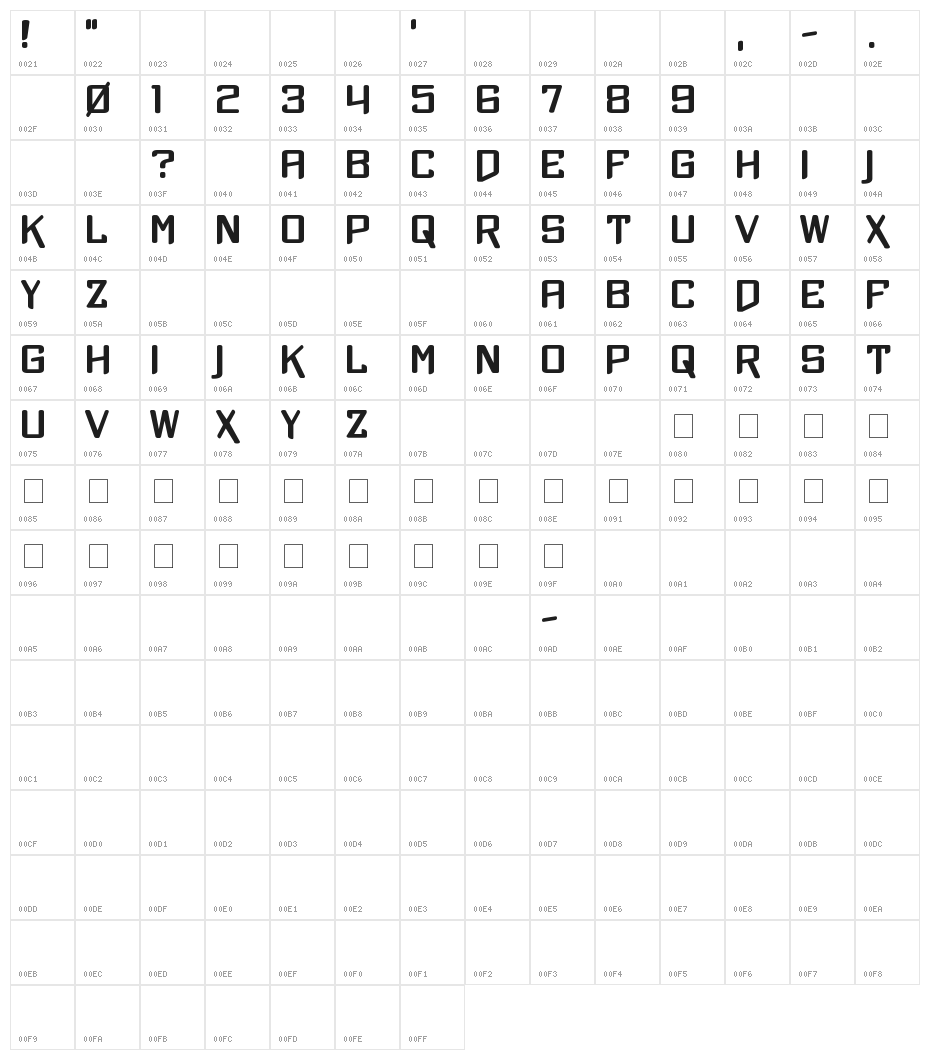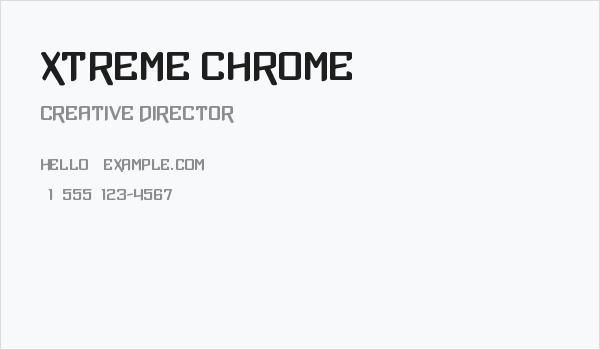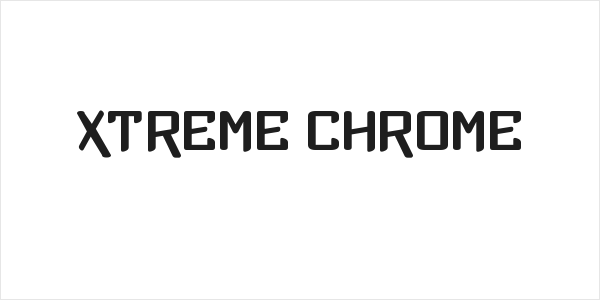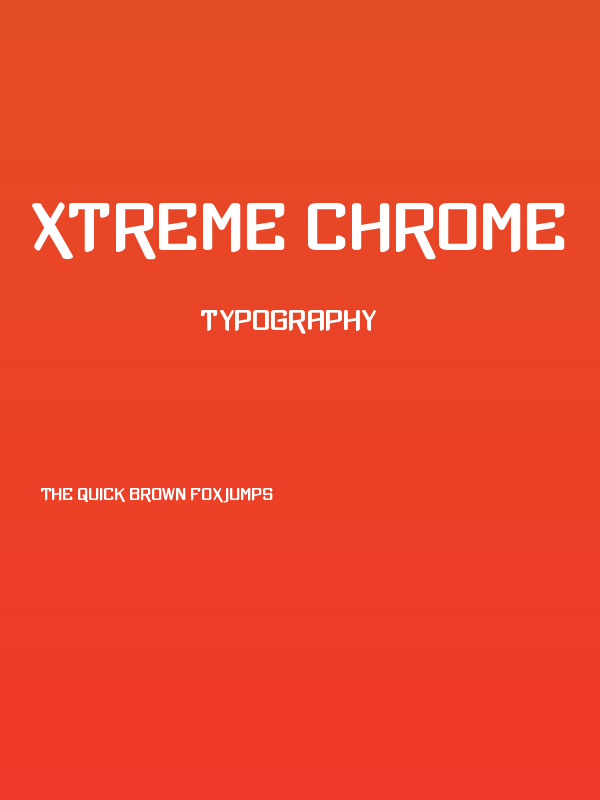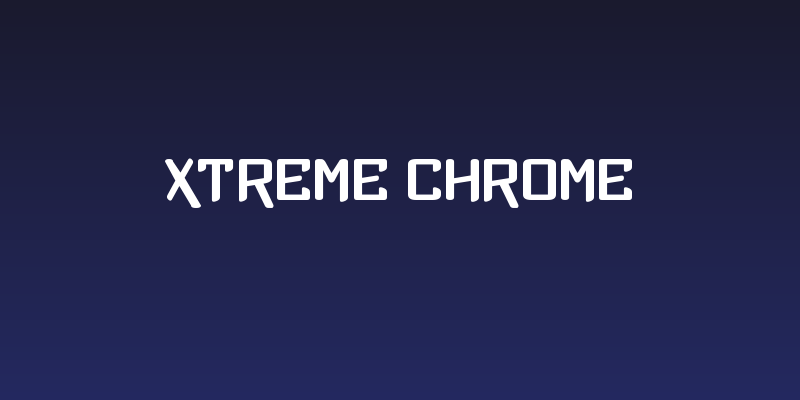
Xtreme Chrome Font
Xtreme Chrome Description
This font features a bold, futuristic design with a distinct geometric style. The characters are constructed with sharp angles and a consistent stroke width, giving it a modern and industrial feel. The uppercase letters are particularly striking, with a uniform height and width that creates a strong visual impact. The lowercase letters maintain the same angular design, ensuring consistency across the typeface. Numbers and special characters are designed to match the boldness and geometric nature of the alphabet, making this font suitable for a variety of digital and print applications. The overall appearance is sleek and contemporary, ideal for projects that require a cutting-edge aesthetic.
Proposed ProjectsIdeal for technology branding, video game titles, sci-fi movie posters, and modern digital interfaces.